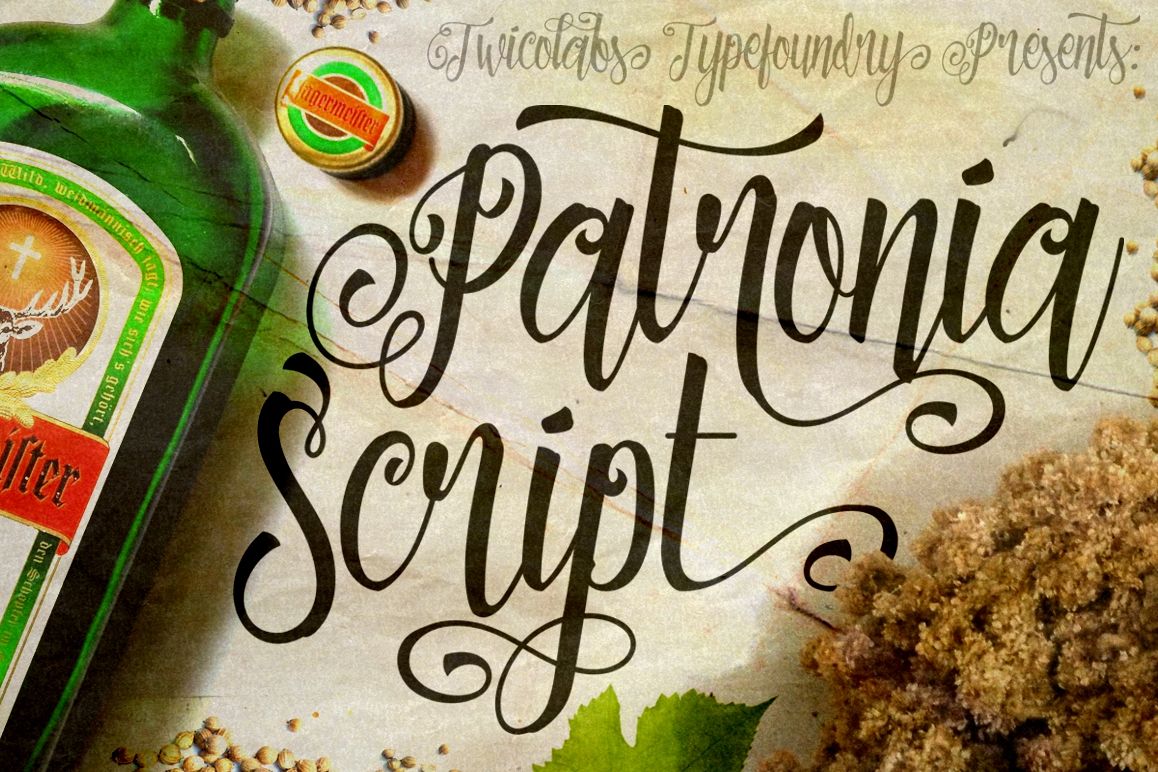
Patronia Script
Patronia Script.
Patronia Script is a brush-lettering inspired script typeface that combined thick and thin lines, loose and tight kerning and unique baseline combinations for genuine hand-writing feels. Suits best for almost all of your designing project; wedding invitation, t-shirt design, fancy logotype, etc. This typeface is packed with +300 glyphs.
Numerals
Basic punctuations
Accents / some multilingual characters
Titling / initial forms
Terminal forms
Stylistic alternate characters